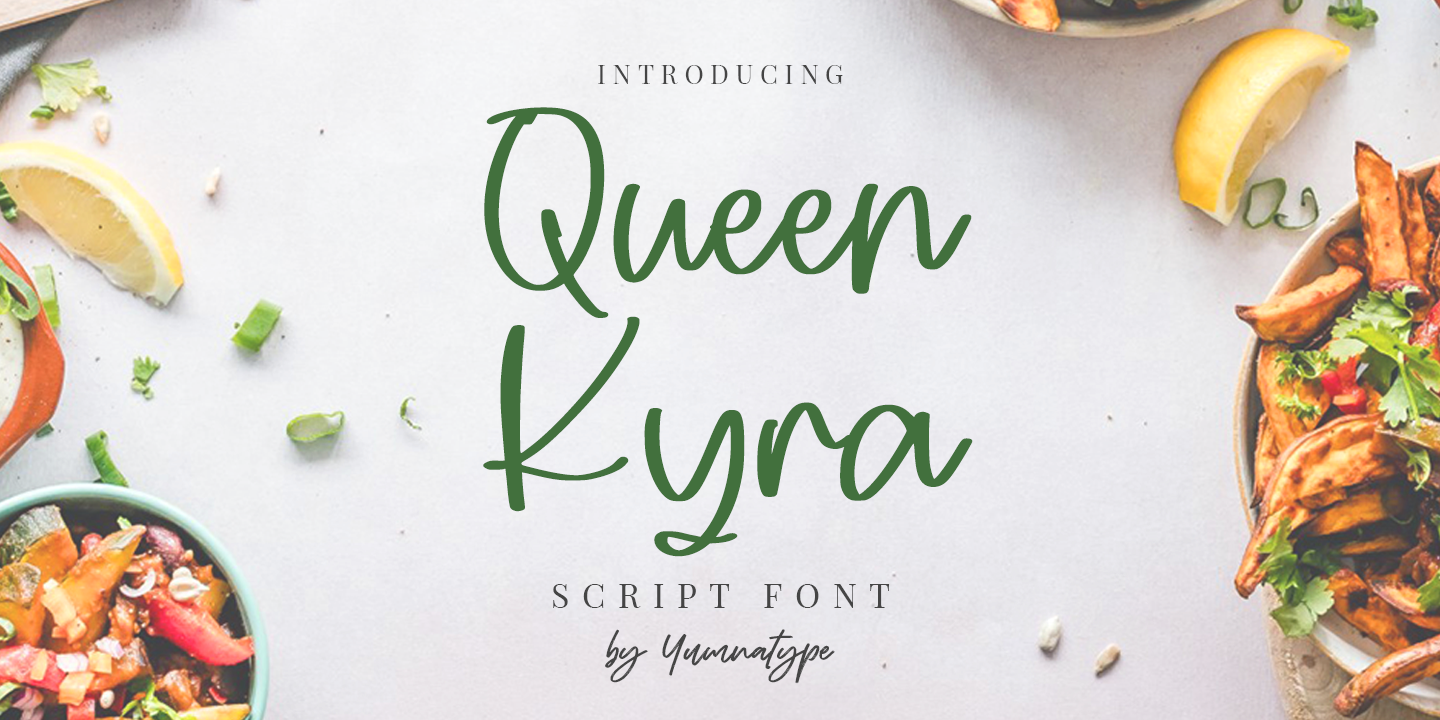
Queen Kyra Font is ideal for royal-themed designs, luxury crown branding, regal event invitations, majestic hotel signage, prestigious award ceremonies, royal wedding communications, elegant jewelry packaging, high-end fashion labels, aristocratic restaurant menus, luxury spa branding, exclusive boutique identities, and imperial-style corporate communications. This majestic typeface excels in applications requiring royal elegance and aristocratic sophistication, making it perfect for luxury brands, prestigious venues, high-end services, and companies targeting audiences seeking regal experiences and royal treatment.
What makes Queen Kyra Font exciting is its magnificent ability to convey royal grandeur and aristocratic elegance through majestic typography. The font features regal letterforms with graceful proportions and noble character variations that evoke the splendor of royal courts and aristocratic heritage. Its dignified construction and imperial design create an atmosphere of luxury and royal authority, while maintaining excellent readability across all applications. The font's distinctive personality embodies the essence of queenly grace and royal magnificence, making it perfect for brands seeking to establish prestigious, crown-worthy identities that resonate with audiences desiring royal treatment and aristocratic experiences.
The Queen Kyra Font family typically includes multiple weights such as Light, Regular, Medium, Bold, and Black variations, along with their corresponding italic styles. Many collections also feature royal alternates, aristocratic ligatures, and crown-inspired decorative elements that enhance the font's majestic character. Some comprehensive packages include royal symbols, imperial borders, and regal glyphs that provide complete design flexibility for luxury and royal projects promoting aristocratic elegance and royal sophistication.
Queen Kyra Font Free Download represents the perfect fusion of royal aesthetics and typographic excellence. This remarkable typeface brings instant majesty and aristocratic appeal to any project, making it particularly valuable for luxury brands, royal-themed venues, and prestigious companies seeking to establish regal, crown-worthy brand identities. The font's versatile nature allows it to perform magnificently in both grand royal displays and elegant aristocratic communications.
Designers treasure Queen Kyra Font for its ability to instantly convey royal authority, aristocratic elegance, and majestic quality that creates prestigious experiences with audiences seeking luxury and royal treatment. The font's excellent construction ensures smooth performance across various media and applications, while its regal appeal adds immediate royal distinction to any design project. The comprehensive character set includes standard Latin characters, numerals, punctuation marks, and special symbols, making it suitable for royal communications, luxury publications, and diverse aristocratic applications.
This exceptional typeface successfully captures the essence of royal magnificence and aristocratic heritage while offering modern functionality, providing designers with an authentic tool for creating memorable and impactful communications that resonate with audiences seeking regal experiences, royal luxury, and aristocratic sophistication.